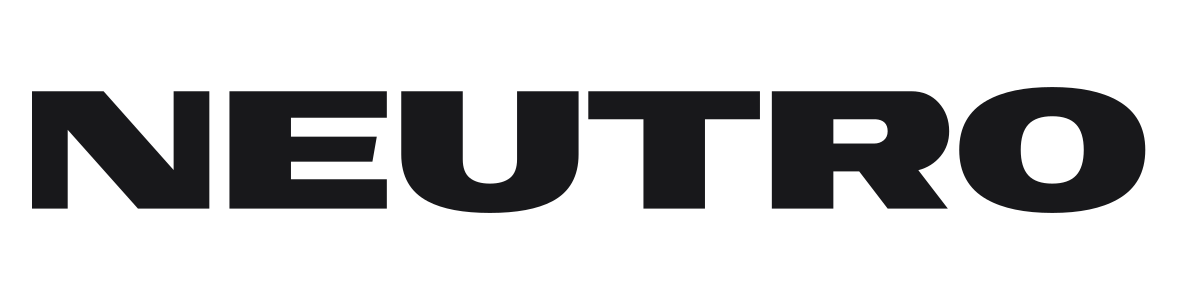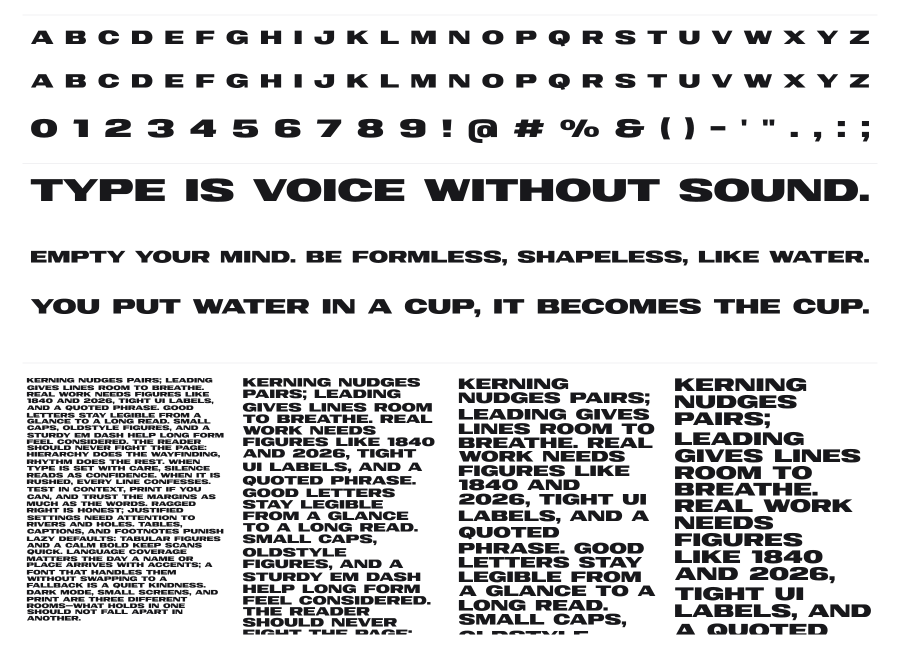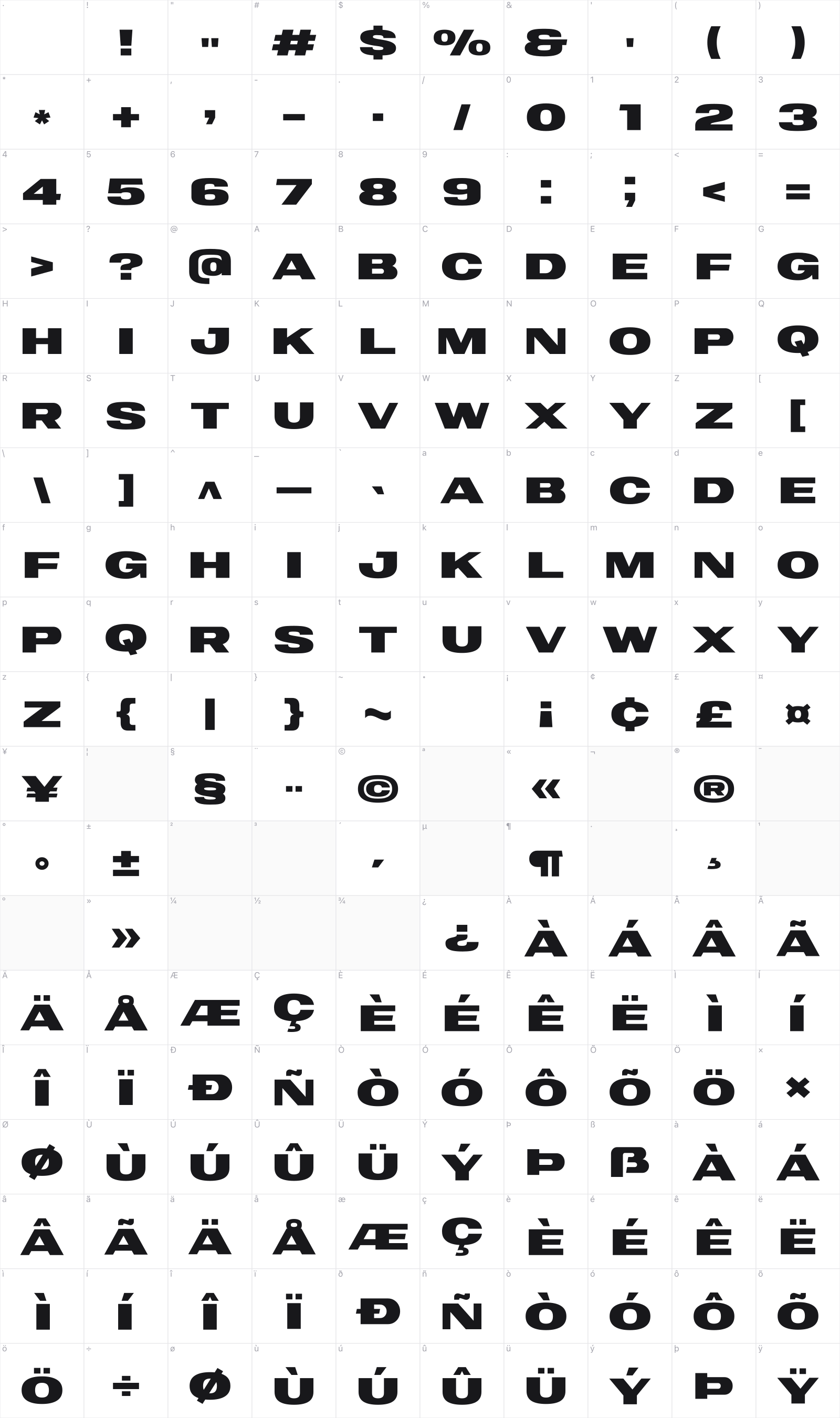
Neutro
Neutro is a bold, wide sans-serif built for maximum visual weight at large sizes. Its extended proportions and near-monoweight strokes give it a dense, commanding presence without resorting to distortion or decorative tricks. The slightly rounded terminals keep it from feeling purely mechanical, landing somewhere between industrial strength and contemporary cool.